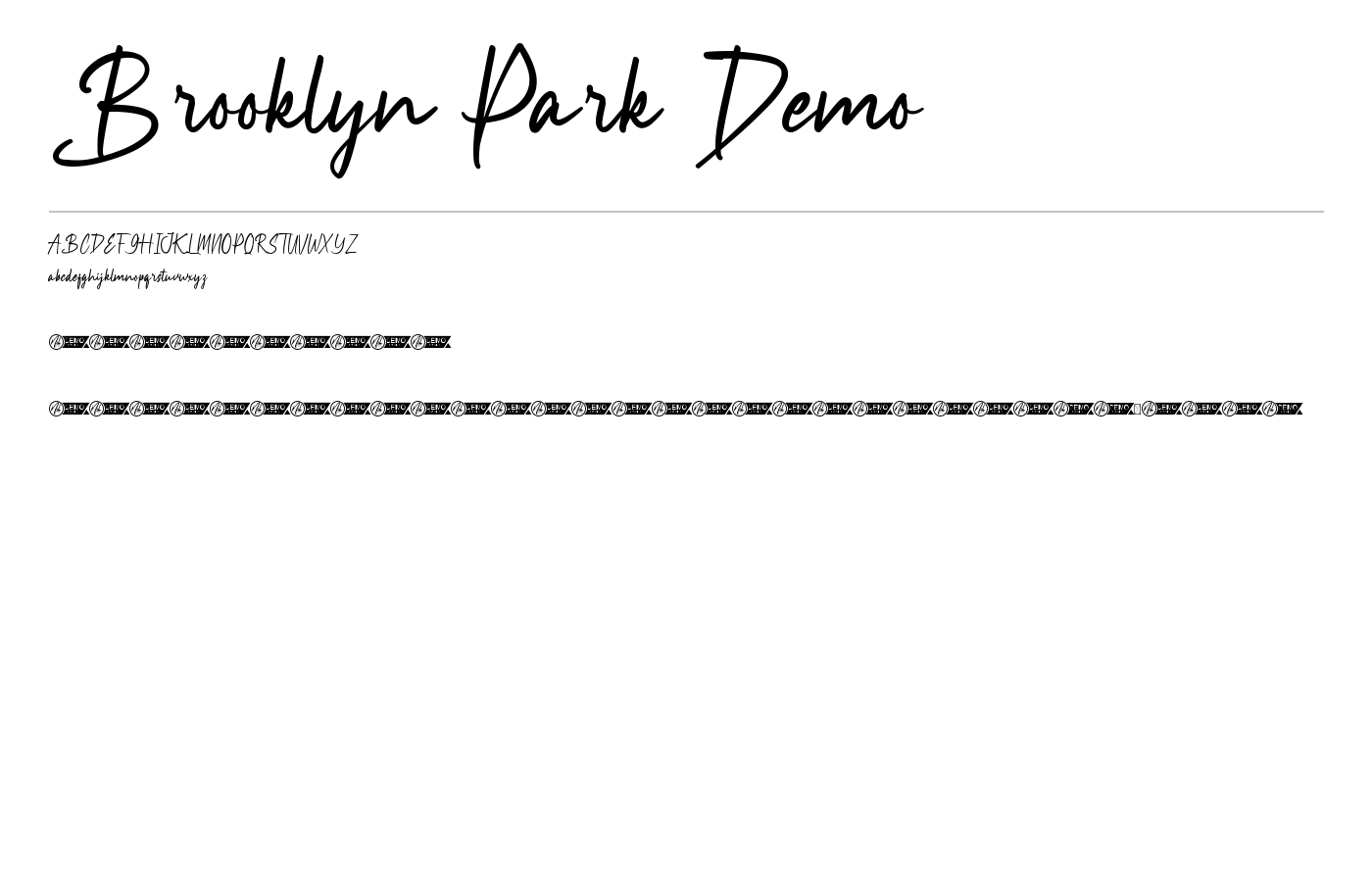
Brooklyn Park Demo is a casual, handwritten script font with a light and airy feel, featuring smooth, flowing strokes that mimic natural penmanship. Its tall x-height, slender letterforms, and gentle curves give it a modern yet approachable personality, making it ideal for creative projects, personal branding, and lifestyle designs where a warm, friendly touch is desired. This font works beautifully in headlines, invitations, and logos that benefit from a stylish but informal look.
Brooklyn Park Demo Font
About Brooklyn Park Demo Font